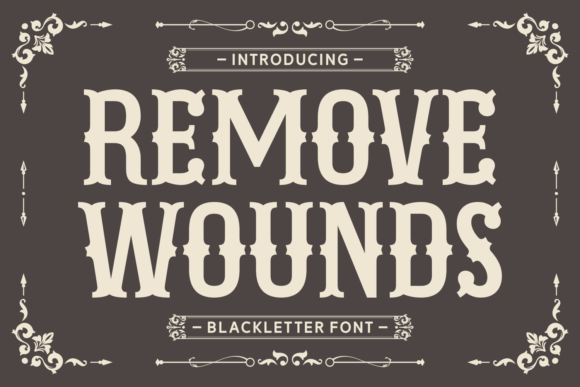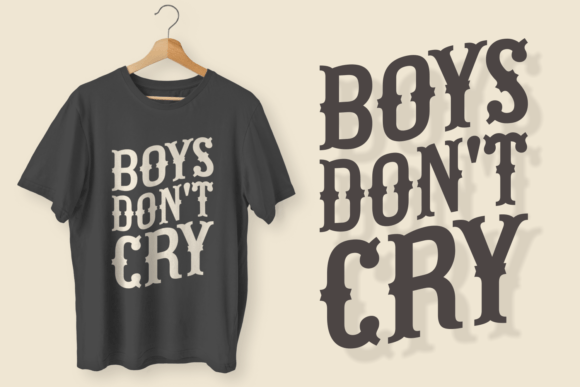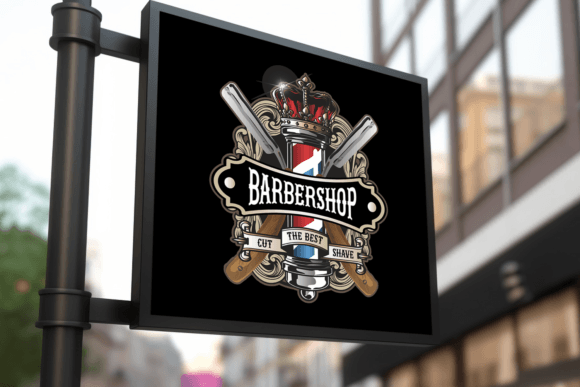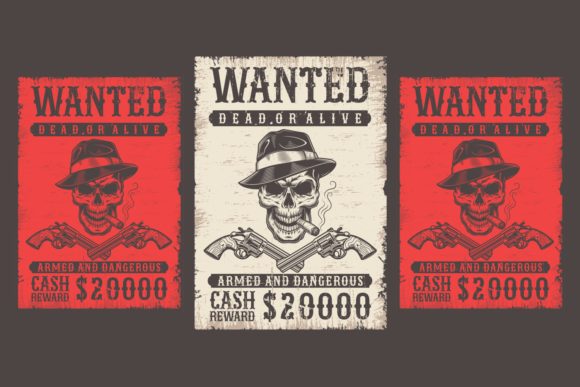
Remove Wounds Font: Bold Blackletter for Vintage Branding
About the Remove Wounds Font
From logos to headlines, the Remove Wounds Font is the perfect choice for making a lasting impression. Remove Wounds is a spectacular blackletter font with a Western feel. Create bold and memorable typography designs with this impressive typeface! You can use it for logos, posters, product packaging, advertisements, t-shirts, websites, headlines, titles, book covers, and more.
Remove Wounds’ strong, slightly aggressive blackletter forms excel in headlines, posters, and branding applications where a bold, Western-inspired aesthetic is desired. Its high contrast and detailed letterforms make it less suitable for body text or UI elements requiring high readability at smaller sizes. Extended use in long paragraphs will likely prove visually overwhelming.
This font’s core personality is bold and rebellious, making it ideal for projects conveying strength, ruggedness, or a vintage feel. Brands like whiskey distilleries, motorcycle apparel companies, or Western-themed restaurants could effectively leverage its character.
Consider pairing Remove Wounds with a clean sans-serif like Montserrat for contrast, or a classic serif like Playfair Display for a more traditional yet equally impactful look. A simpler, geometric sans-serif would also provide a good counterpoint, allowing the blackletter’s detail to shine.
Remove Wounds Font Usage Examples
Remove Wounds Font Example